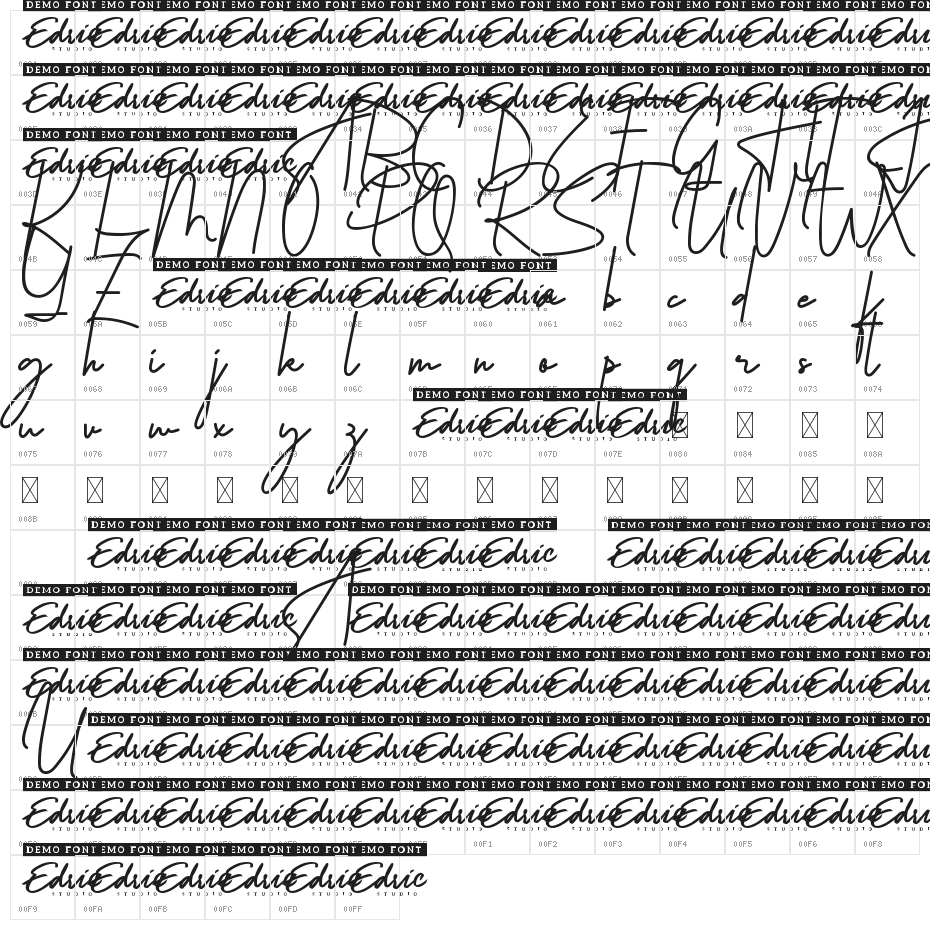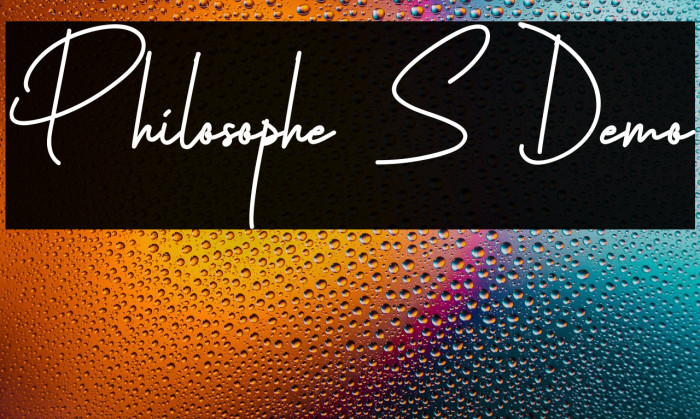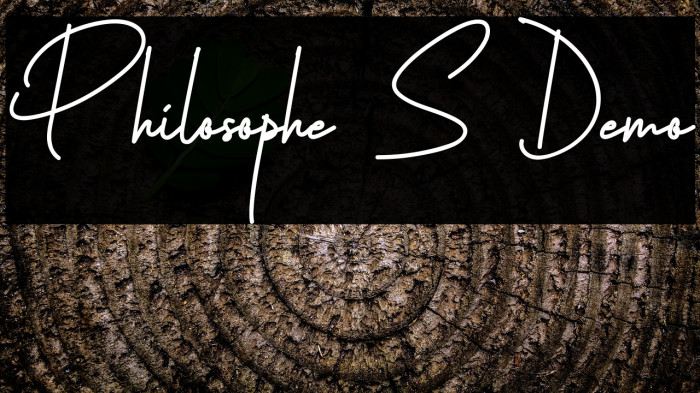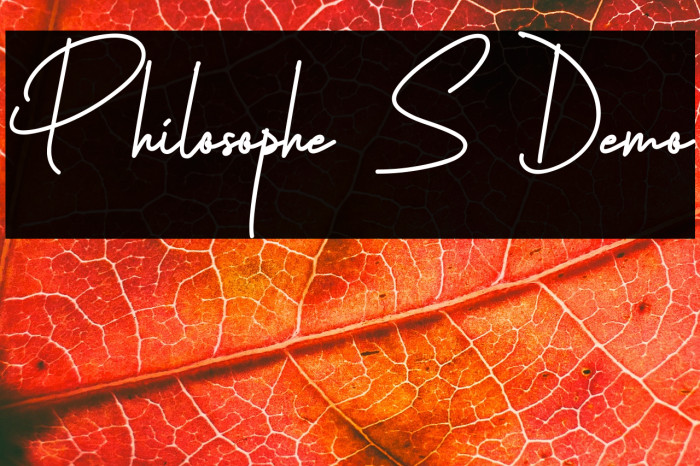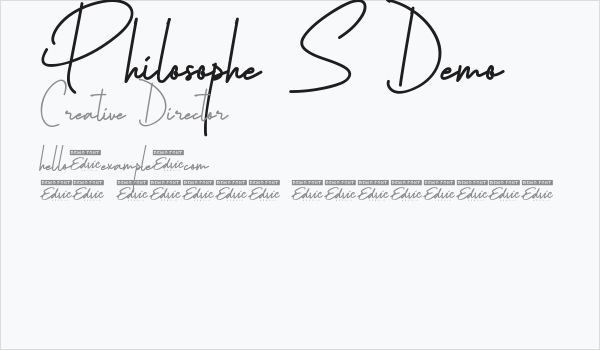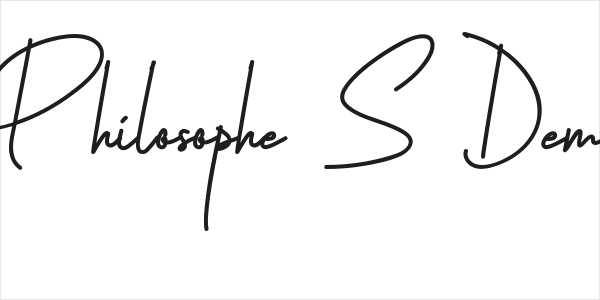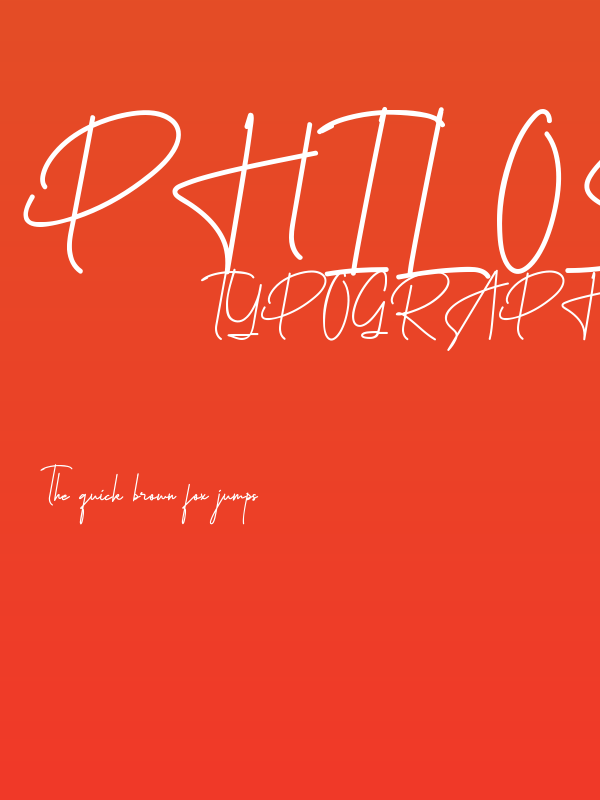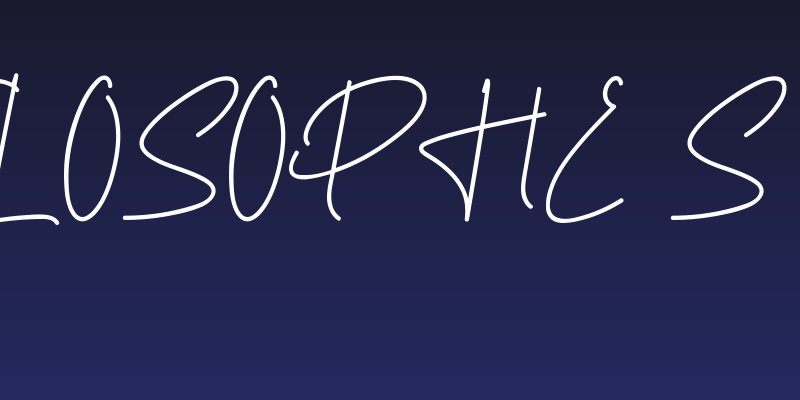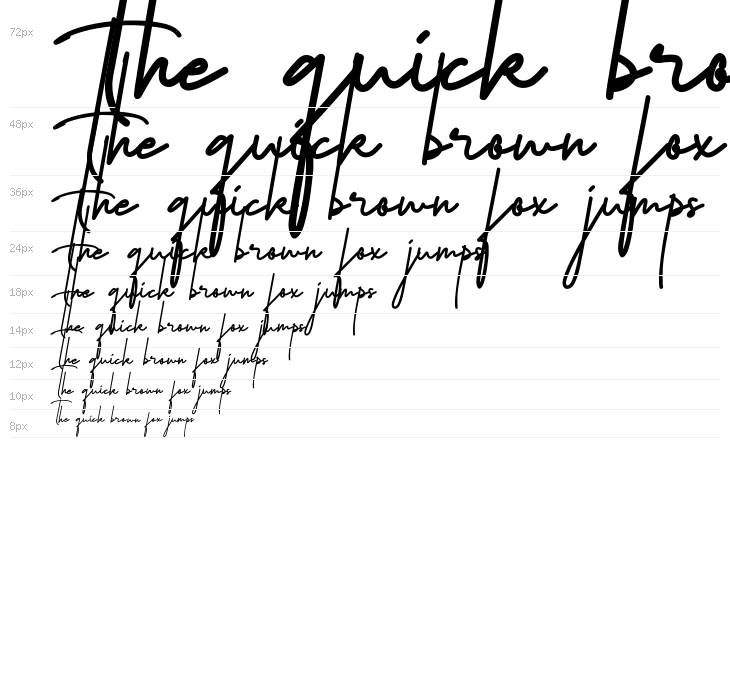
Philosophe S Demo Font
Philosophe S Demo Description
This font exhibits a dynamic and fluid handwritten style, characterized by its elegant, flowing strokes that mimic natural handwriting. The uppercase letters are tall and slender, with a slight slant that adds a sense of motion and grace. The lowercase letters are more compact, maintaining a consistent flow that enhances readability. The font's overall appearance is both sophisticated and approachable, making it suitable for a variety of creative applications. The numerals and special characters are designed to complement the letters, maintaining the same fluidity and style. This font is ideal for projects that require a personal touch, such as invitations, greeting cards, or branding materials.